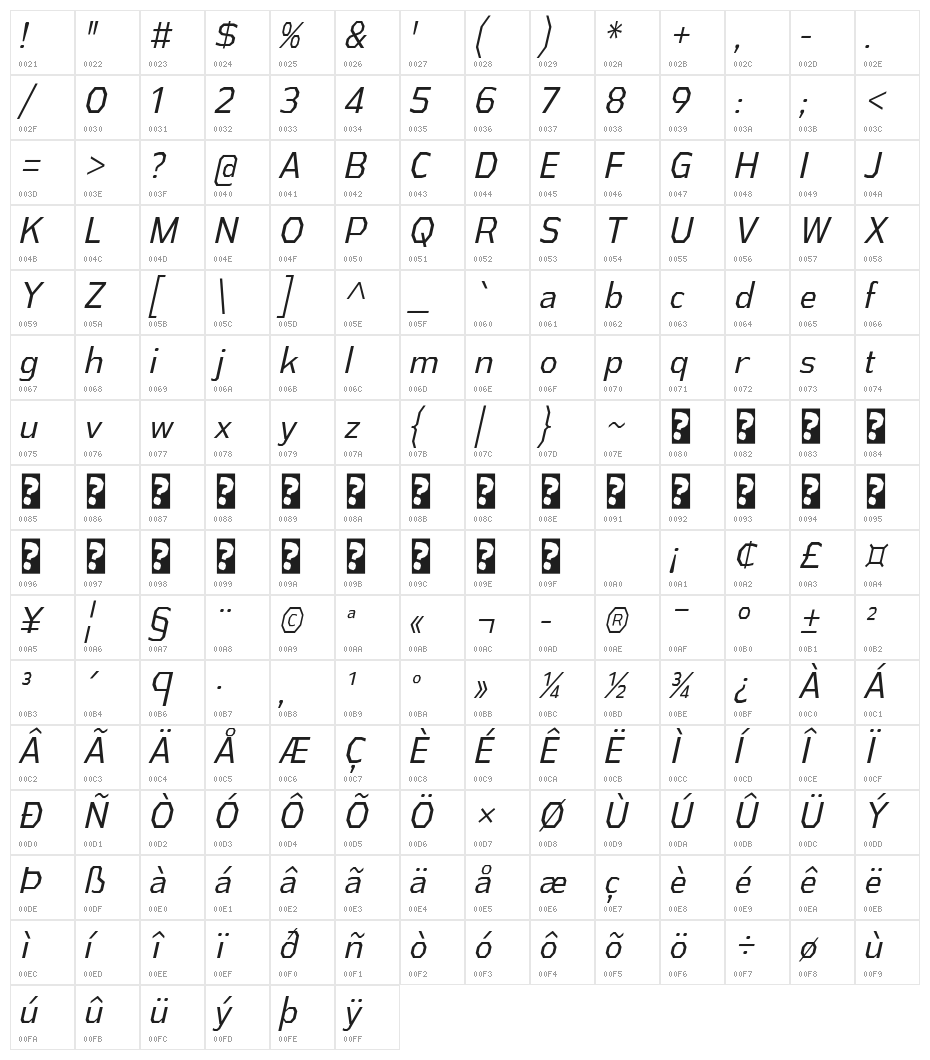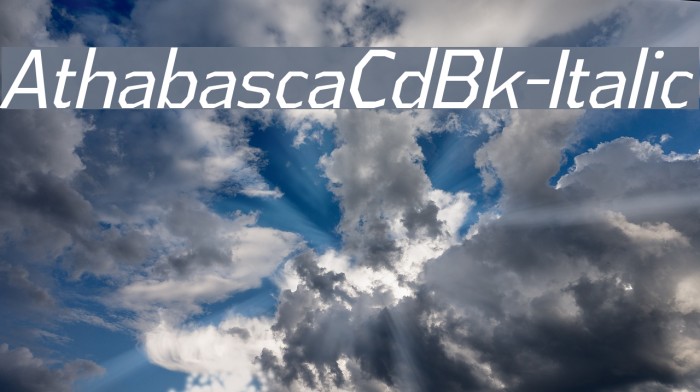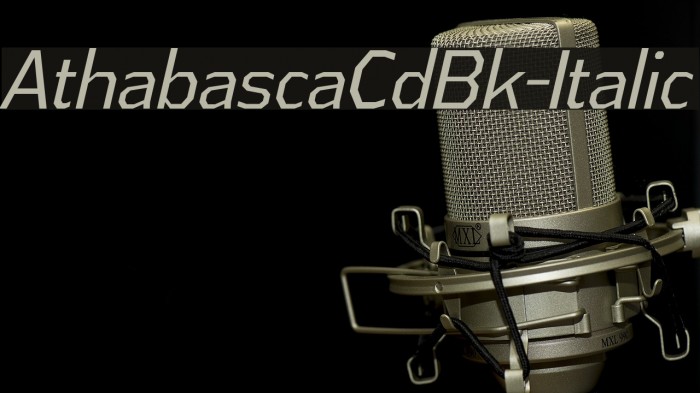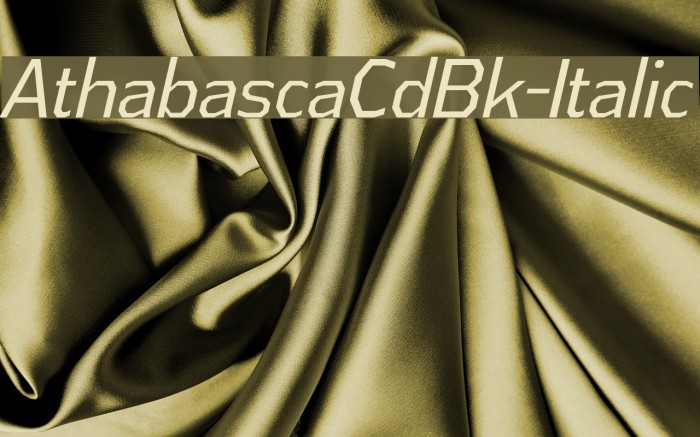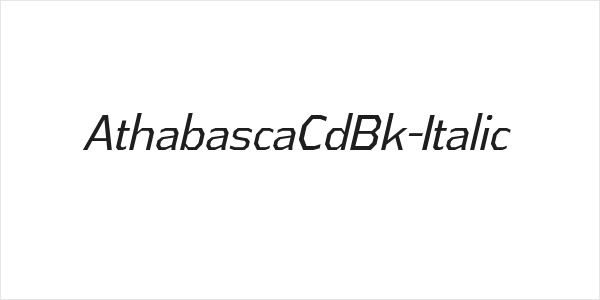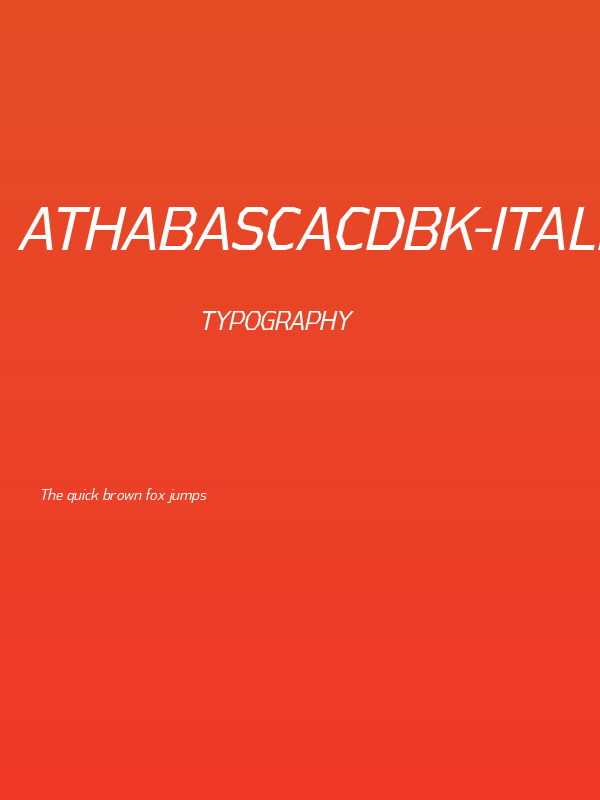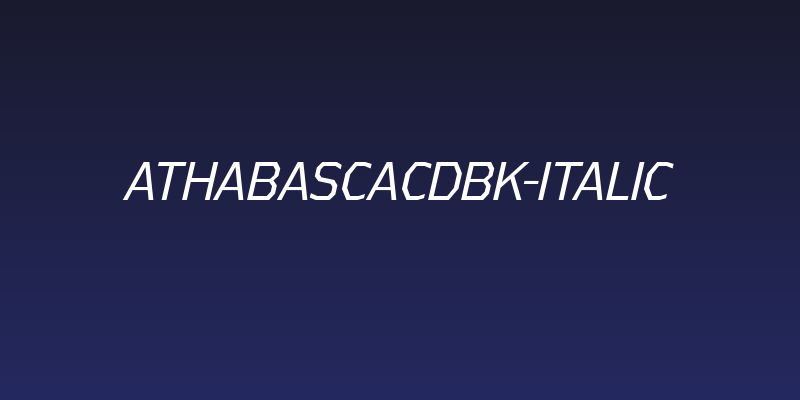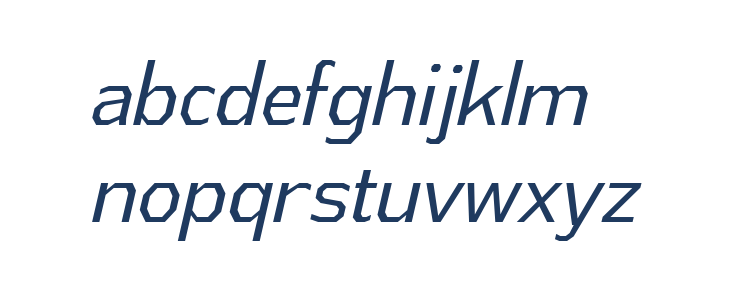
AthabascaCdBk-Italic Font
AthabascaCdBk-Italic Description
This font features a modern, italicized style with a geometric and angular design. The characters are slightly condensed, giving it a sleek and streamlined appearance. The uppercase letters are bold and prominent, while the lowercase letters maintain a consistent flow with a slight slant, enhancing the italic effect. The numerals are distinct and clear, matching the overall angular theme. Special characters are well-defined, maintaining the font's cohesive look. The font's clean lines and sharp angles make it suitable for contemporary designs.